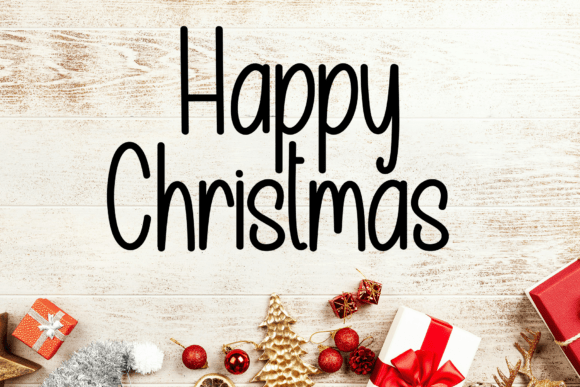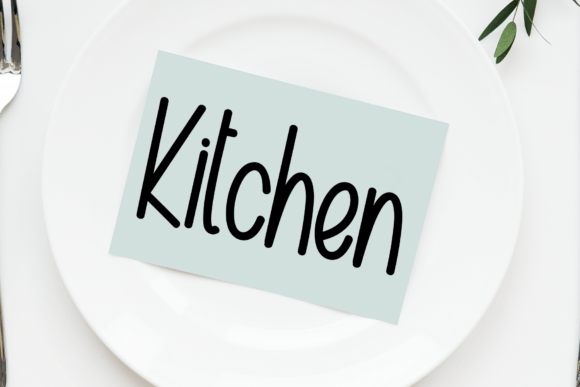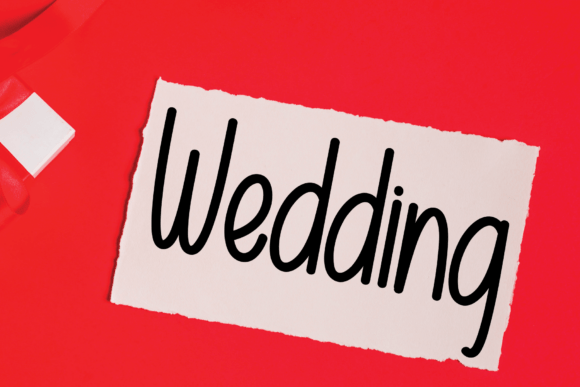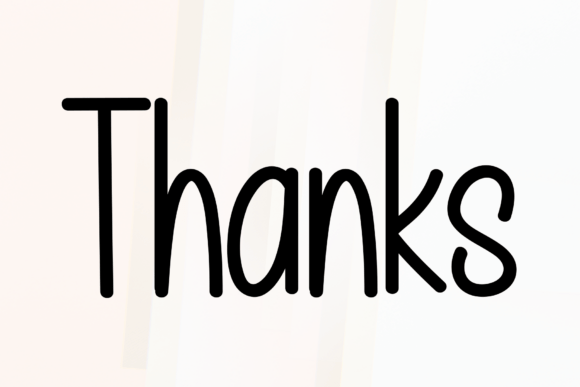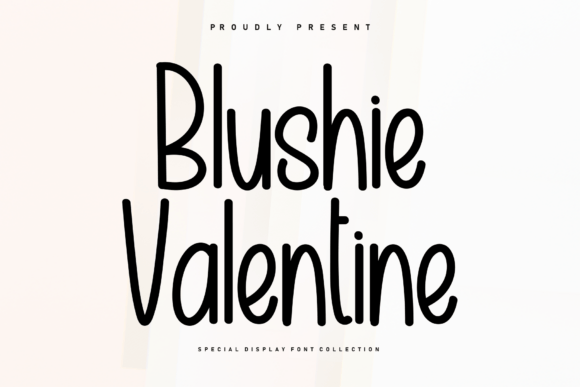
Introducing Blushie Valentine Font: The Perfect Handwritten Marker Font for Your Designs
Are you looking for a font that exudes a relaxed and sporty feel, yet screams luxury and elegance? Look no further than Blushie Valentine Font, a beautiful handwritten font that looks like it was drawn with a marker. In this article, we’ll dive into the features and benefits of Blushie Valentine Font, and explore how you can use it to elevate your designs.
What is Blushie Valentine Font?
Blushie Valentine Font is a unique and stylish handwritten font that is perfect for designers and crafters looking for a marker-drawn feel. Its relaxed and sporty vibe makes it ideal for a wide range of design projects, from branding and logos to wedding supplies, greeting cards, and marketing promotions.
Key Features of Blushie Valentine Font
- Handwritten with a marker feel: Blushie Valentine Font has a distinctive handwritten look that gives it a personal and casual feel.
- Relaxed and sporty vibe: The font’s relaxed and sporty vibe makes it perfect for designs that need to convey a sense of fun and approachability.
- Luxurious and elegant: Despite its casual feel, Blushie Valentine Font still manages to convey a sense of luxury and elegance, making it perfect for high-end designs.
- Versatile: Blushie Valentine Font can be used for a wide range of design projects, from branding and logos to wedding supplies, greeting cards, and marketing promotions.
Use Cases for Blushie Valentine Font
Blushie Valentine Font is a versatile font that can be used for a wide range of design projects. Here are some use cases to get you started:
- Branding and logos: Use Blushie Valentine Font to create a unique and memorable brand identity that stands out from the crowd.
- Wedding supplies: Add a touch of elegance and sophistication to your wedding designs with Blushie Valentine Font.
- Greeting cards: Use Blushie Valentine Font to create beautiful and heartfelt greeting cards for any occasion.
- Fashion and lookbooks: Blushie Valentine Font is perfect for fashion designs that need to convey a sense of style and sophistication.
- Marketing promotions: Use Blushie Valentine Font to create eye-catching marketing promotions that grab attention and drive results.
Tips for Using Blushie Valentine Font
Here are some tips for getting the most out of Blushie Valentine Font:
- Pair it with a bold font: Pair Blushie Valentine Font with a bold font to create a striking contrast that adds visual interest to your design.
- Use it for headlines and titles: Blushie Valentine Font is perfect for headlines and titles, where its unique and elegant feel can really shine.
- Experiment with colors: Don’t be afraid to experiment with different colors and textures to add depth and interest to your design.
Blushie Valentine Font is a unique and versatile font that is perfect for designers and crafters looking for a handwritten marker font with a relaxed and sporty feel. With its luxurious and elegant vibe, it’s ideal for a wide range of design projects, from branding and logos to wedding supplies, greeting cards, and marketing promotions. By following the tips outlined in this article, you can get the most out of Blushie Valentine Font and create stunning designs that capture your audience’s attention.